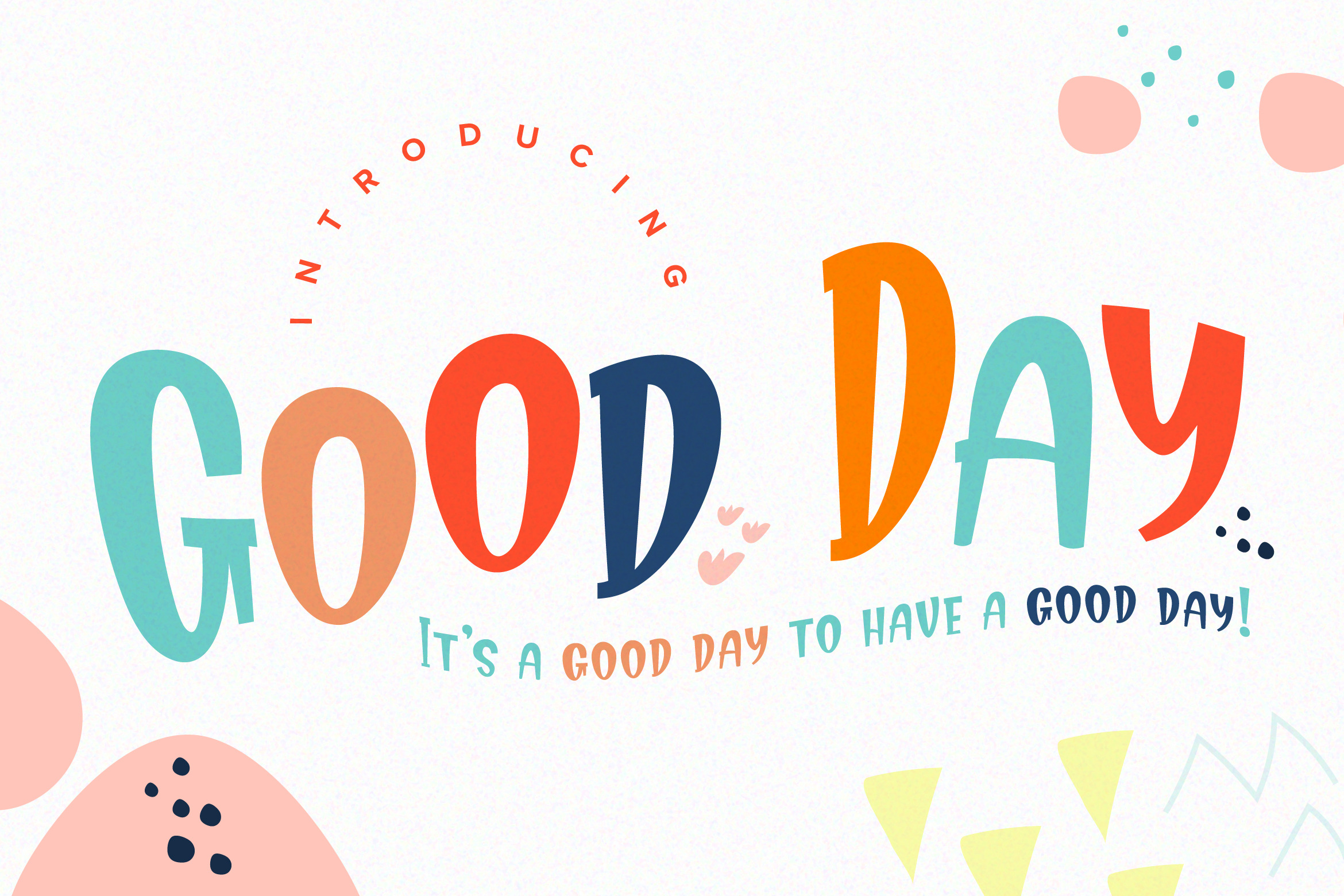
Good Day Fun Display Font
Good Day Display font is a font created with robot & technology in mind. It features a unique style and will add a friendly feel to your upcoming projects. Get inspired by its unique feel and use it to create beautiful poster, product packaging or logo and many more!